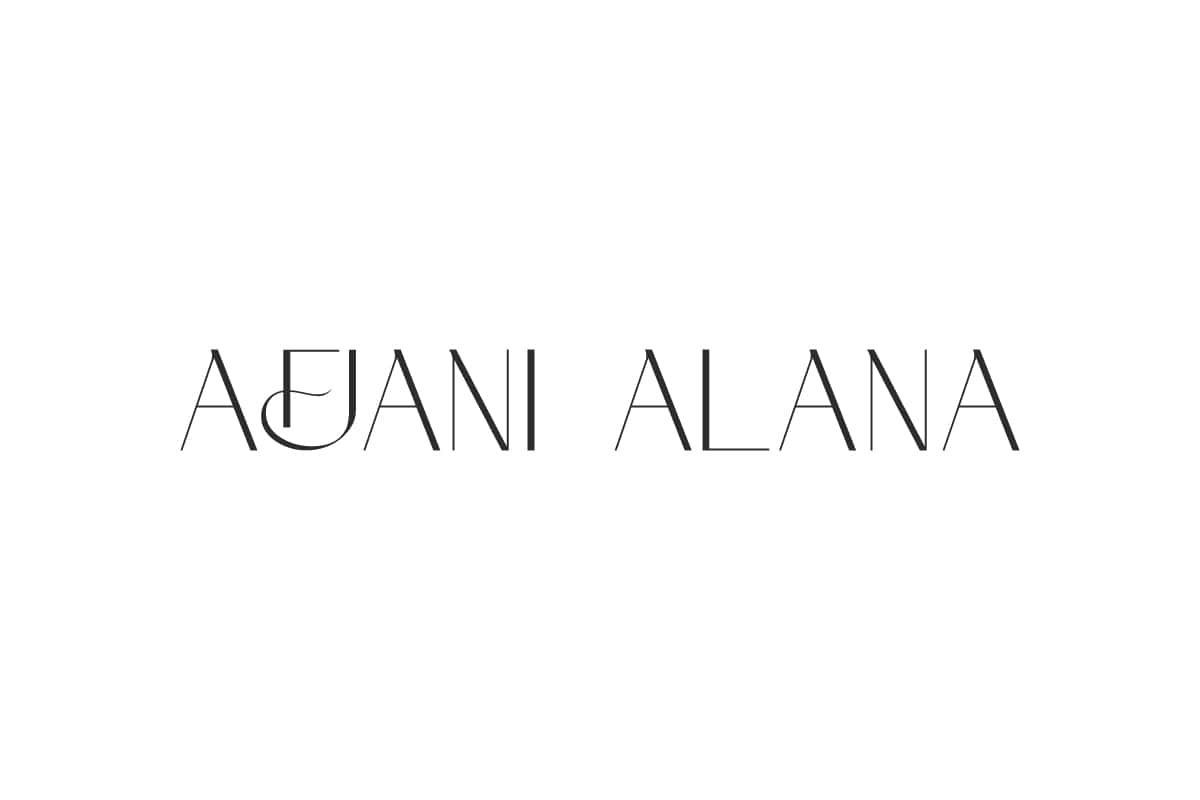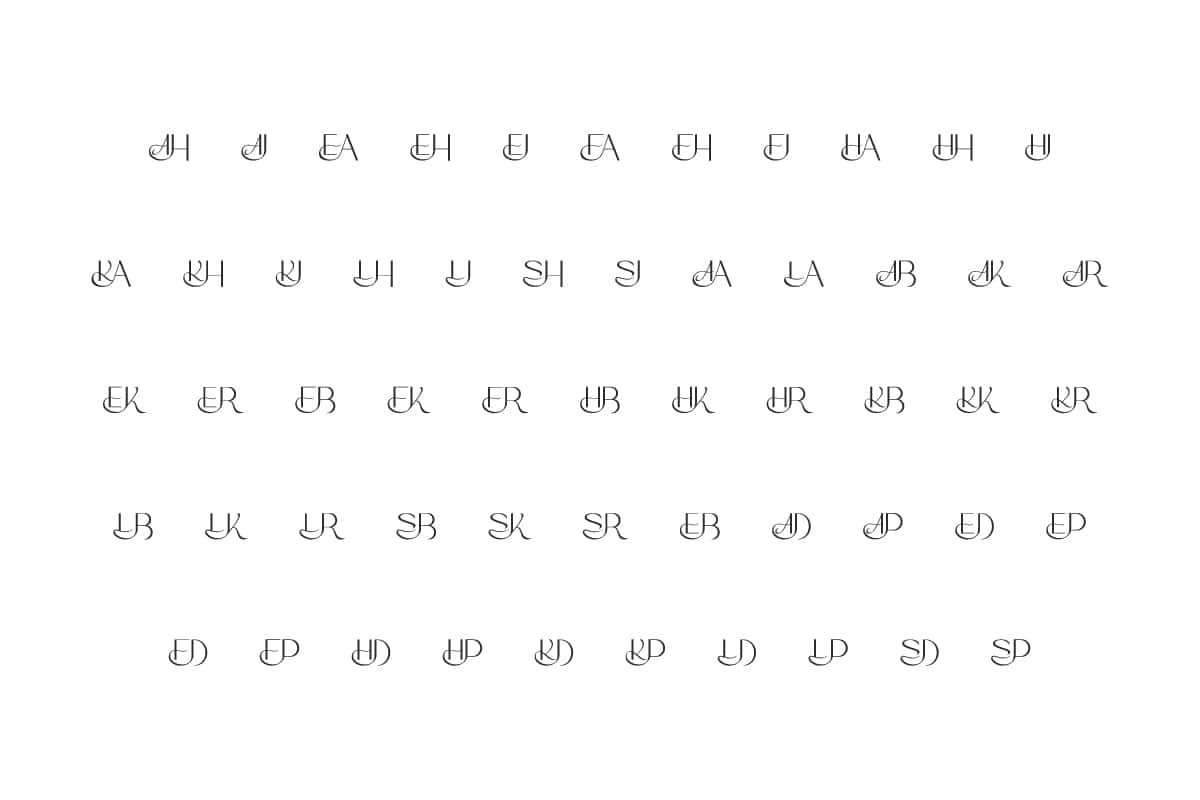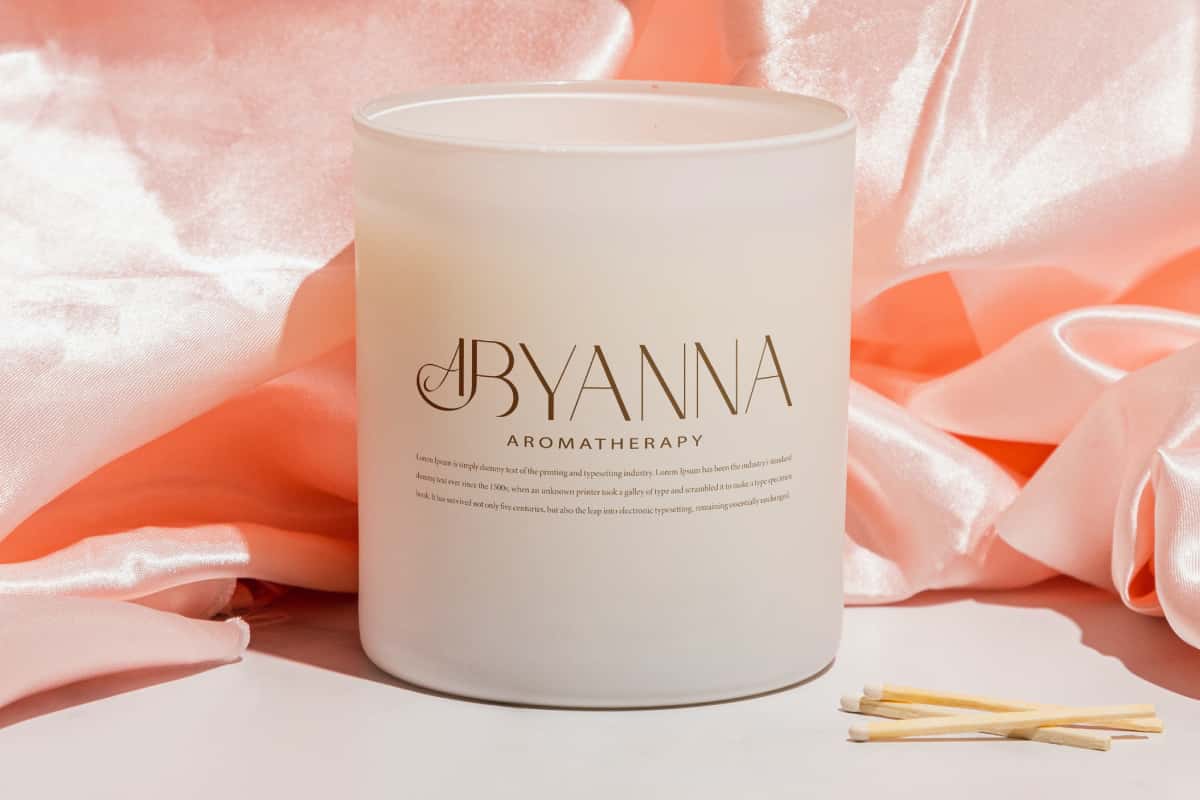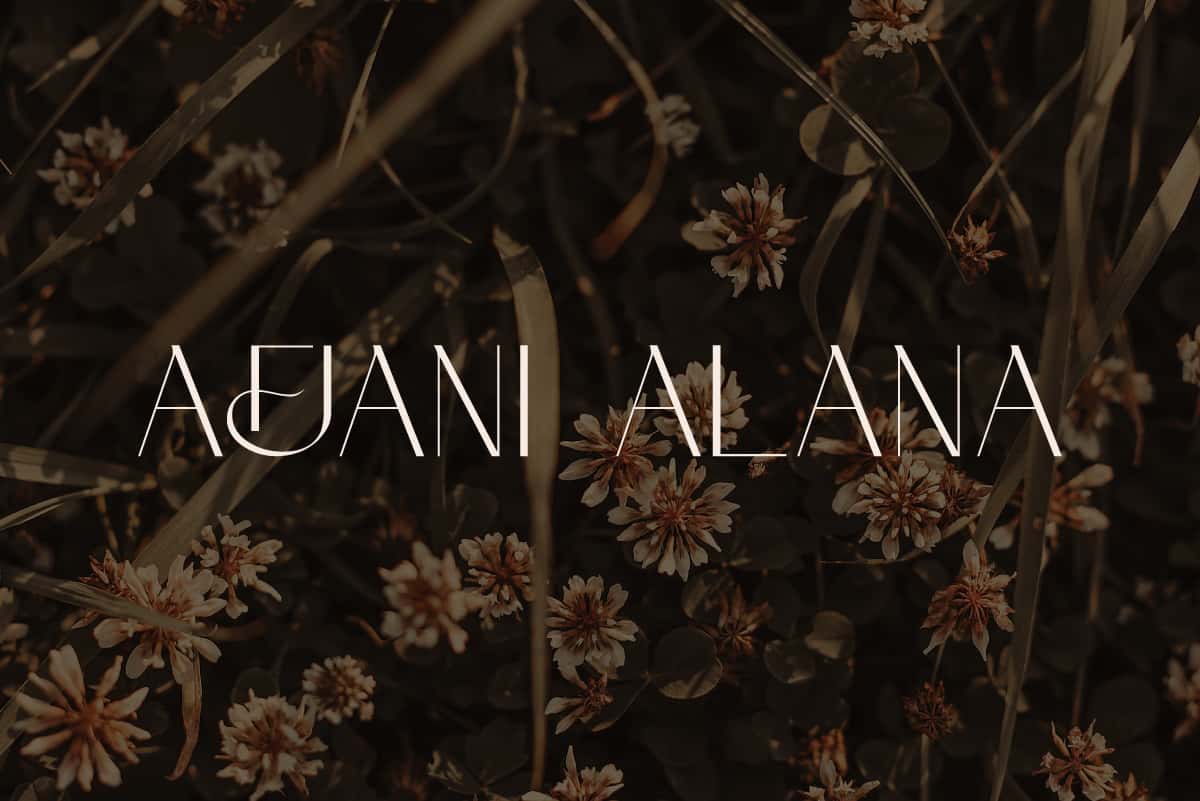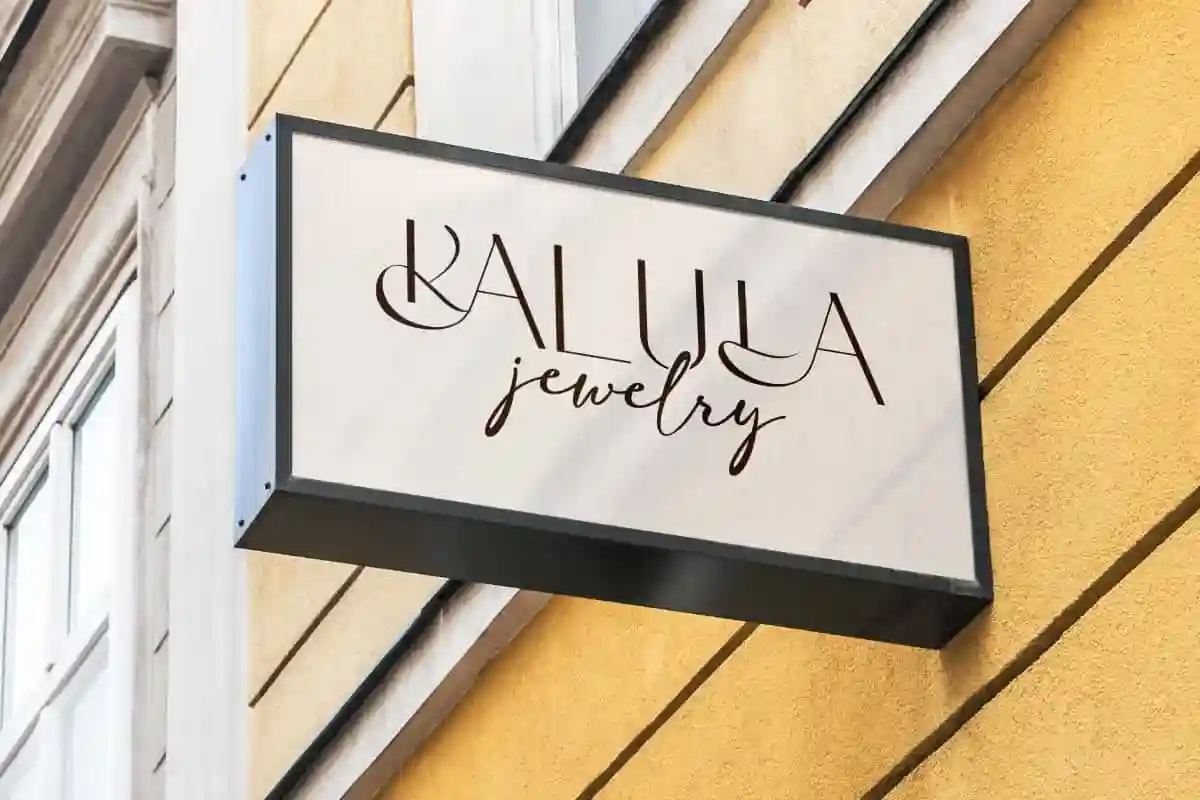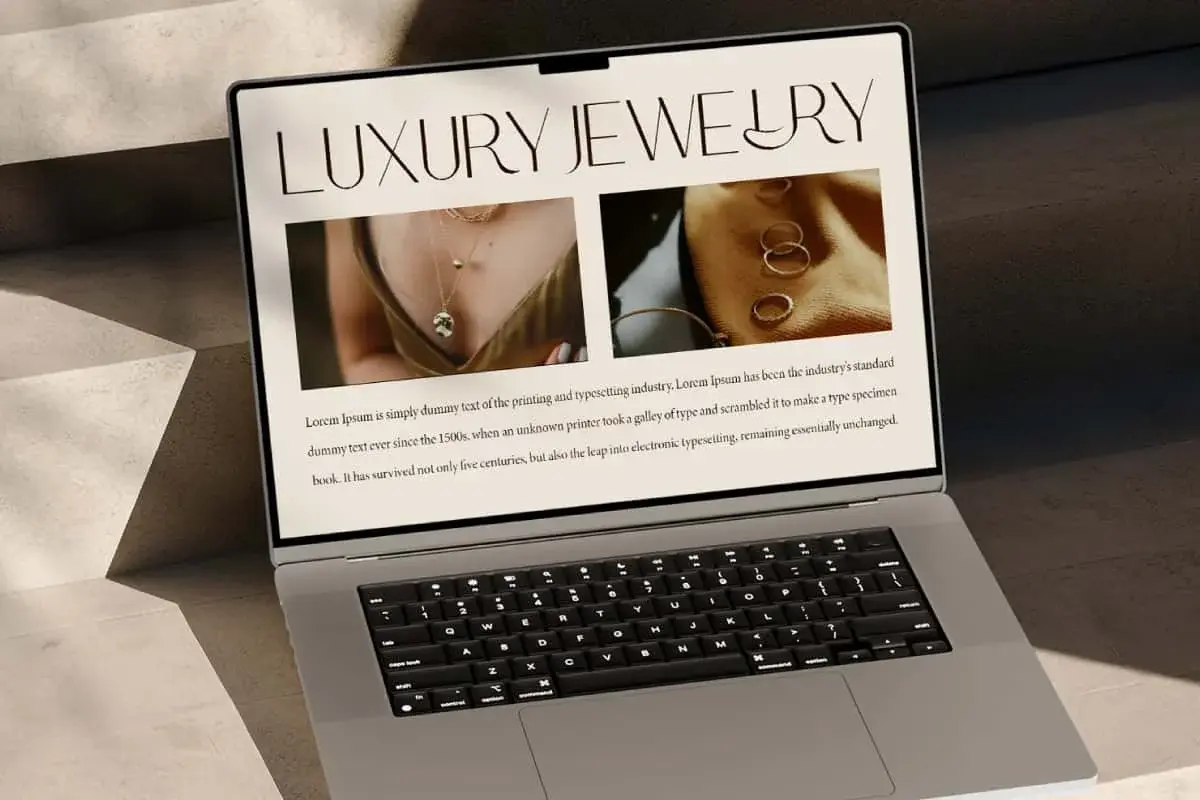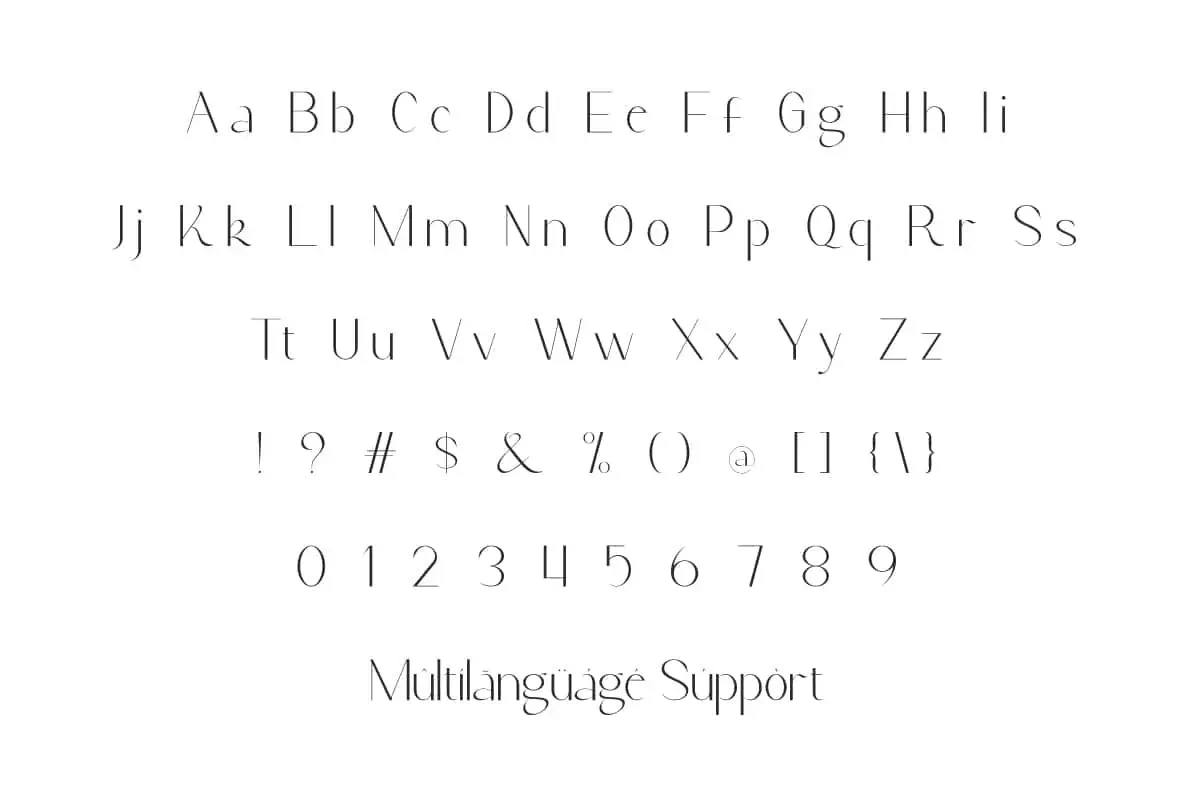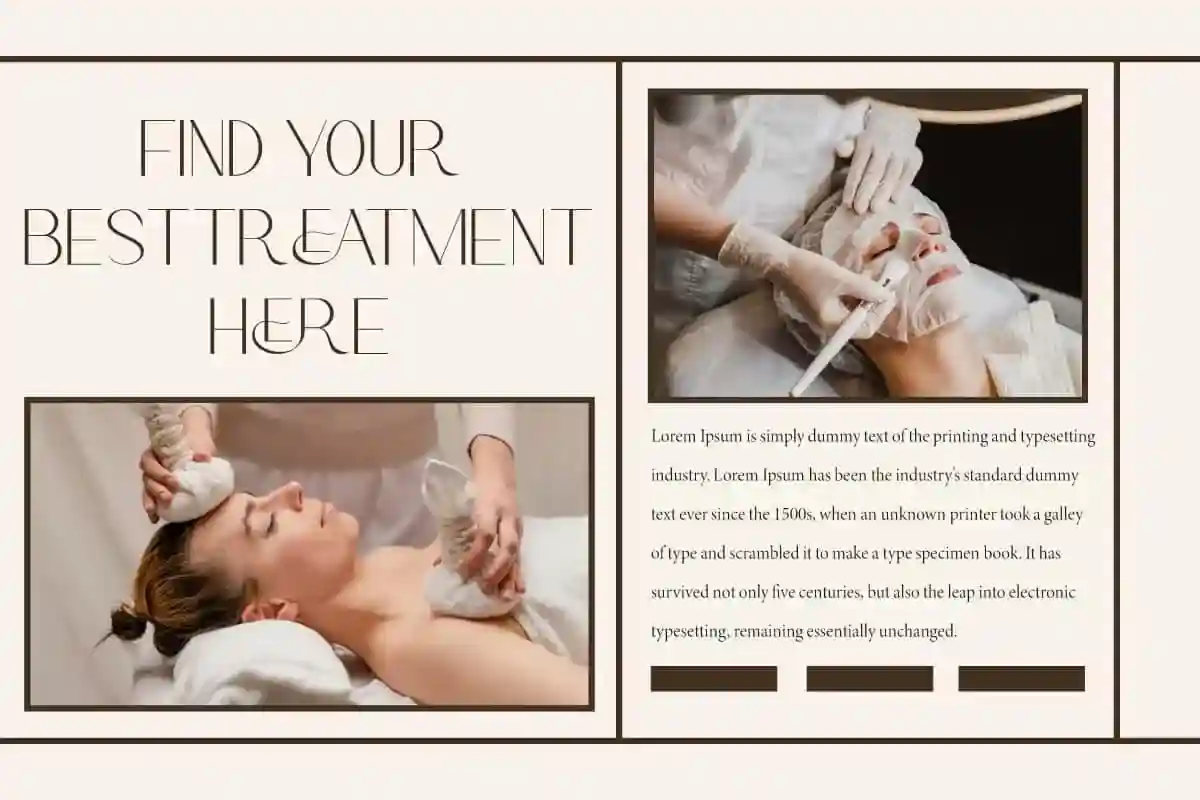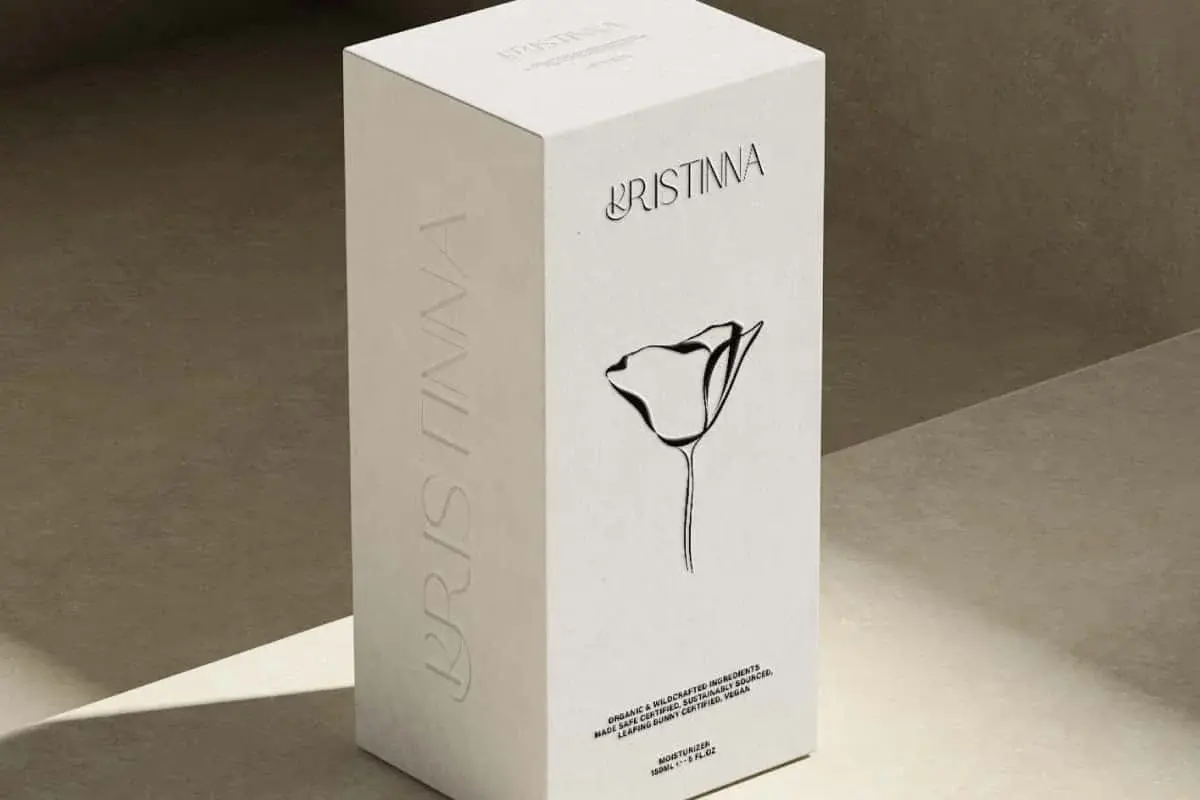
Afjani Alana Font is elegant sans serif font makes a modern statement through its sleek letterforms and artistic curve variations.
Afjani Alana Font is a sophisticated sans font display with a wide selection of ligatures that further enhance its beauty. Made thinner to show a modern side. Perfect for blogs, covers, invitation, label, logos, mockup, packaging, quotes, menu, shopping bag, stationery, template, title, watermarks, website, etc.
Afjani Alana Font includes full set of Uppercase and Lowercase Basic Characters, Number, Punctuation, Symbol, and Ligature. With a simple visual appeal, this font creates a more visually dynamic appearance. Perfect for accessories and gift, authors, beauty clinic, boutique, cafes, cosmetic, florist, graphic design, handicraft, interior, photography, restaurant, spa salon, and more.